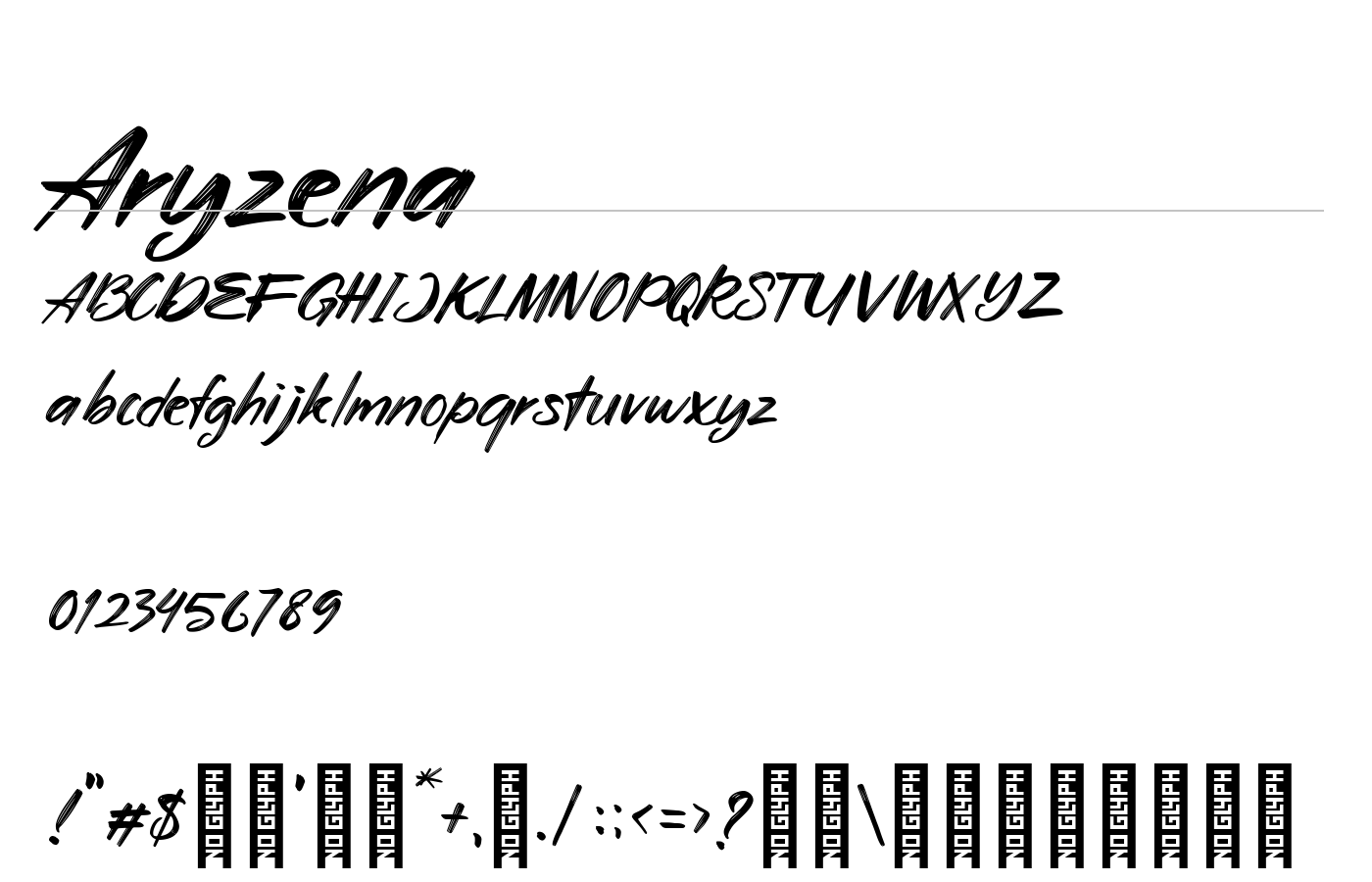
Aryzena is a dynamic and expressive script font that combines a casual handwritten style with bold, brush-like strokes. Its slightly slanted, flowing letterforms feature a lively contrast in thickness, giving it an energetic and approachable feel that works well for creative branding, invitations, and eye-catching headlines. This font shines in designs that aim to convey personality and spontaneity while maintaining clear readability.
Aryzena Font
About Aryzena Font